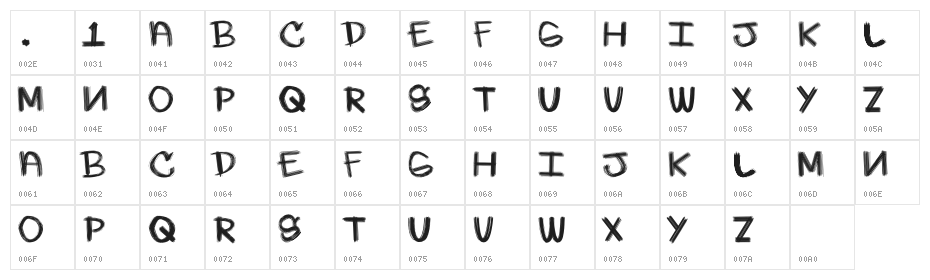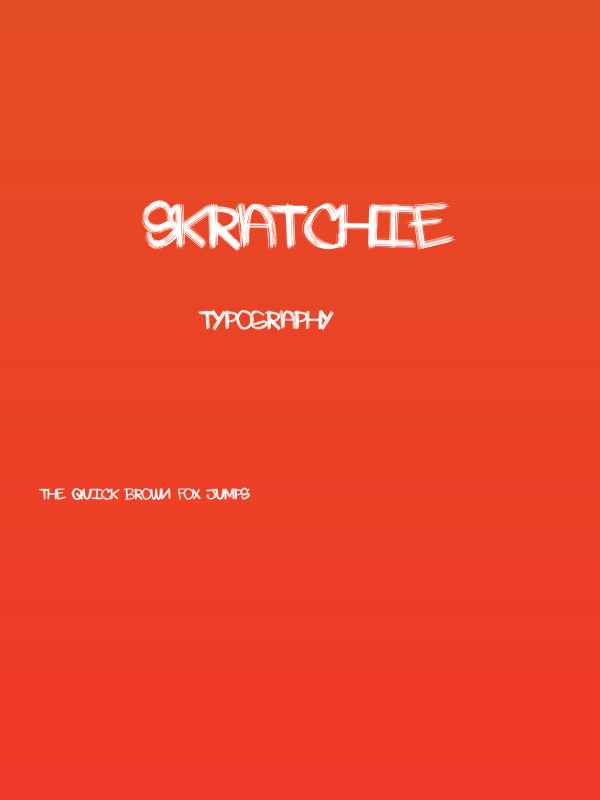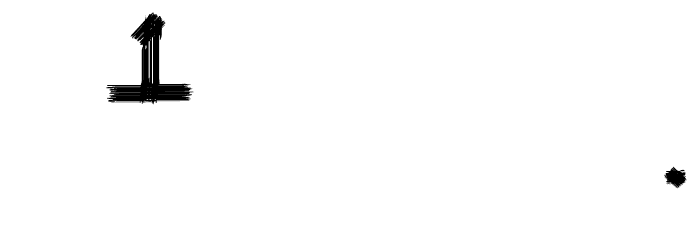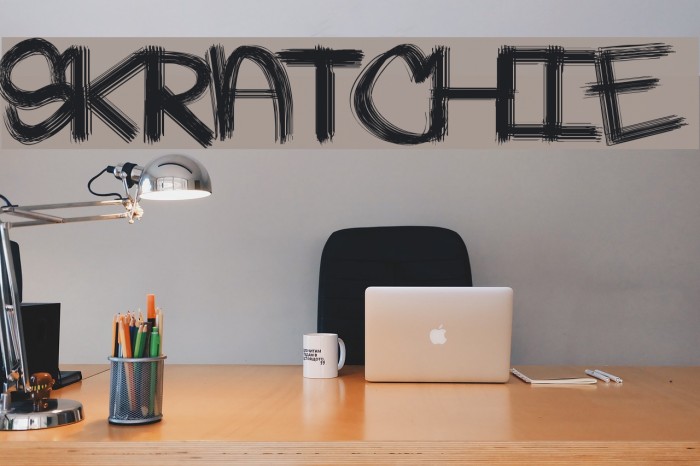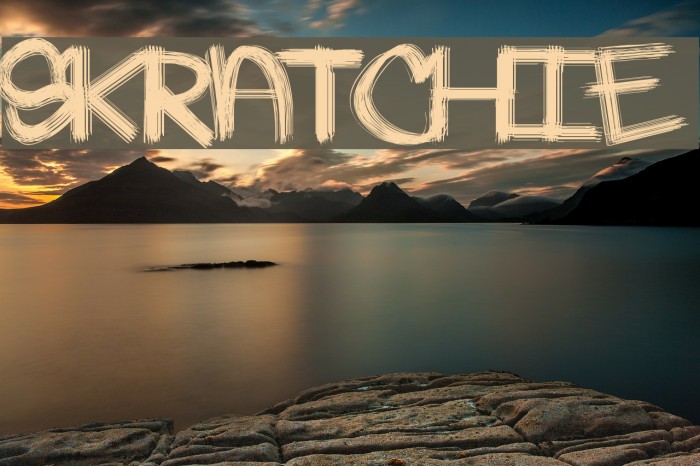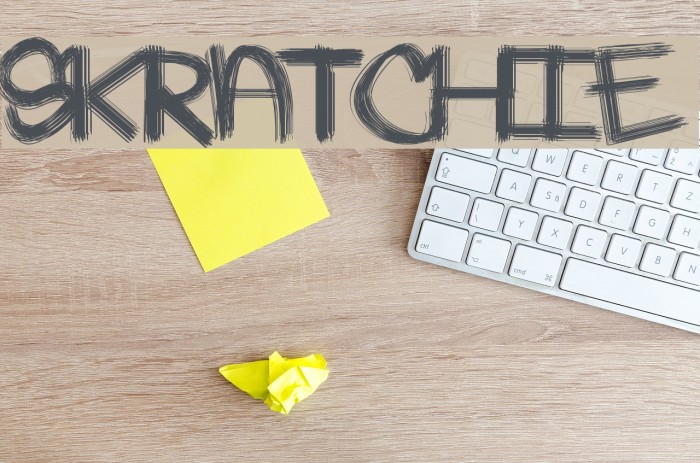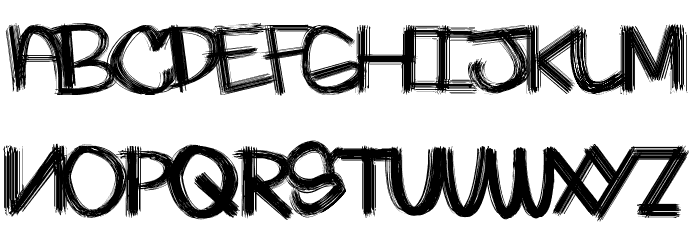
Skratchie Font
Skratchie Description
This font features a unique, hand-drawn style with a scratchy, textured appearance. The letters are bold and dynamic, with irregular strokes that give a sense of movement and energy. The uppercase and lowercase characters maintain a consistent style, with each letter appearing as if it has been sketched with a rough brush or pen. The numbers and special characters follow the same aesthetic, ensuring a cohesive look across all glyphs. The overall effect is both artistic and edgy, making it ideal for projects that require a distinctive and unconventional typeface.
| Proposed Projects | Ideal for album covers, posters, street art designs, and any project needing an edgy, artistic touch. |